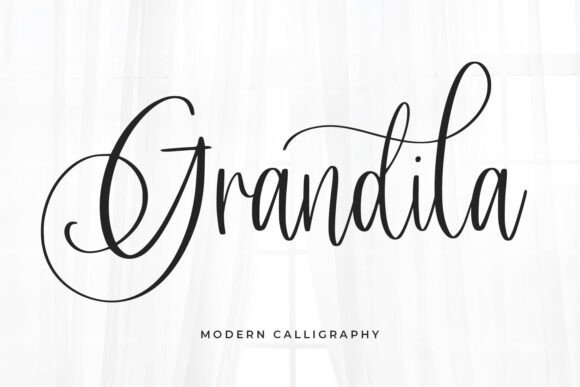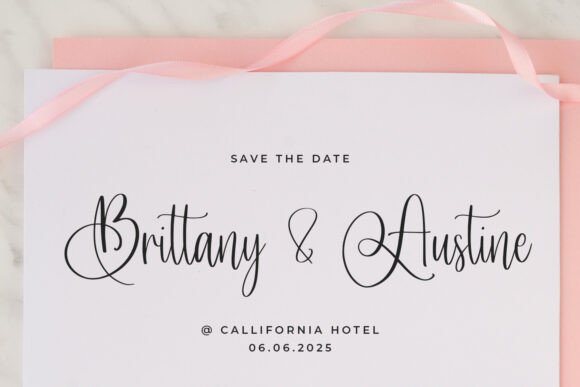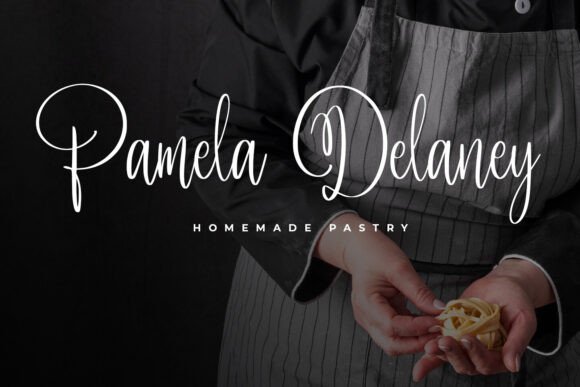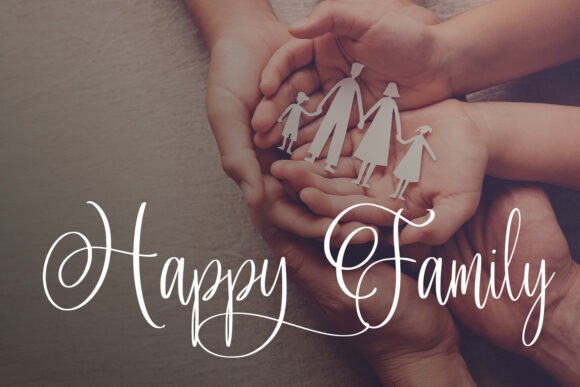
Grandila Font
About the Grandila Font
Explore the possibilities with Grandila Font, a font that offers both beauty and functionality. Grandila is a lovely and timeless handwritten font. It is the best choice for creating eye catching logos, branding and quotes. Every letter has a unique and beautiful touch, which will make your design come alive!
Grandila’s elegant, yet slightly informal, handwritten style is ideal for logos, short headlines, and branding projects requiring a touch of personality. It works exceptionally well on packaging for premium products or in short, impactful quotes within marketing materials. Avoid using it for body text or lengthy paragraphs; its legibility suffers at smaller sizes.
Consider pairing Grandila with a clean sans-serif like Montserrat for a modern contrast, or a classic serif such as Garamond for a more traditional feel. A geometric sans-serif like Futura could also provide a striking juxtaposition, grounding the handwritten informality.
Grandila projects a friendly, approachable, yet sophisticated personality. Brands focused on handcrafted goods, artisanal products, or those emphasizing quality and personal attention would find it particularly suitable.
Grandila Font Usage Examples
Grandila Font Example